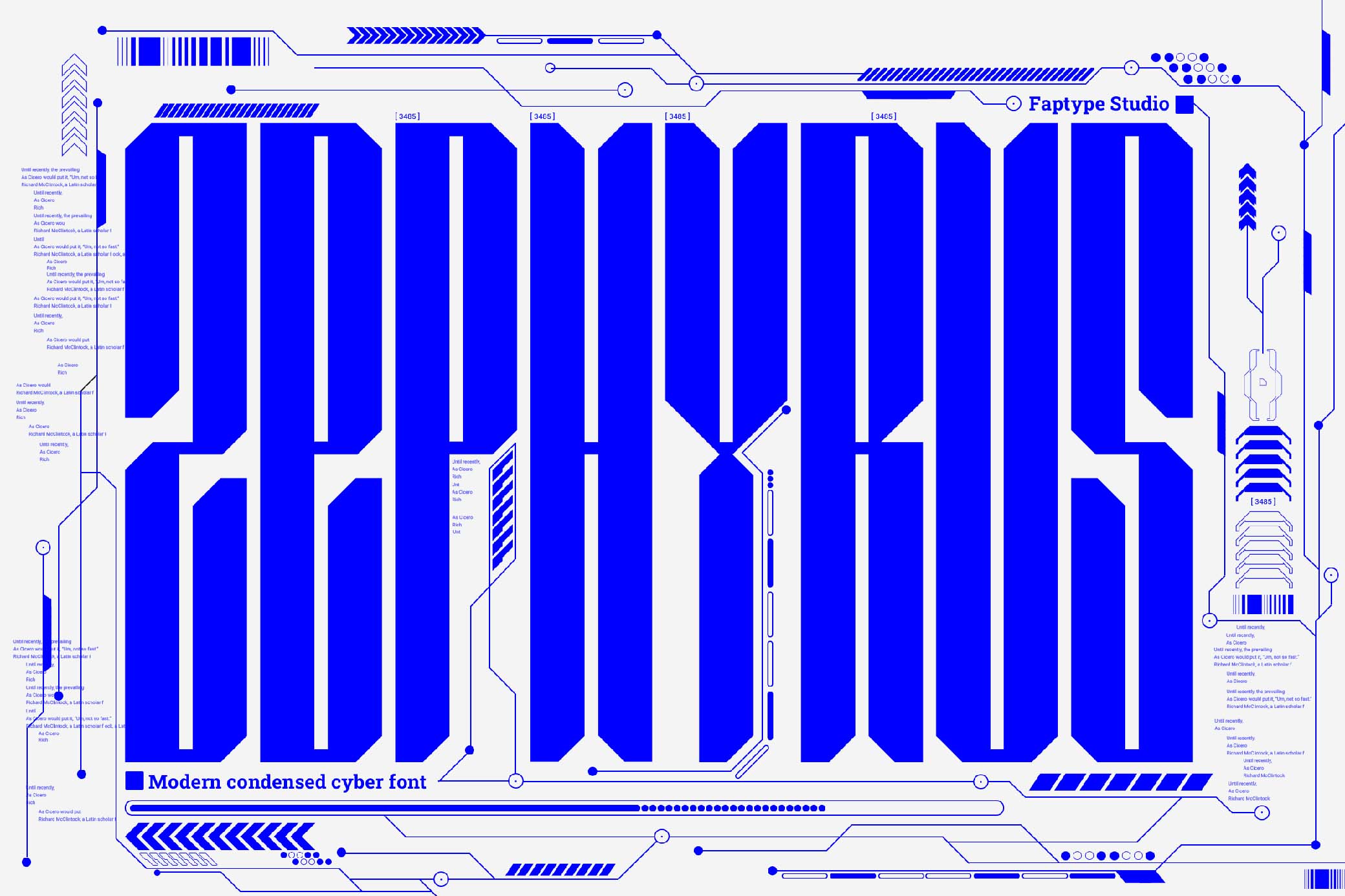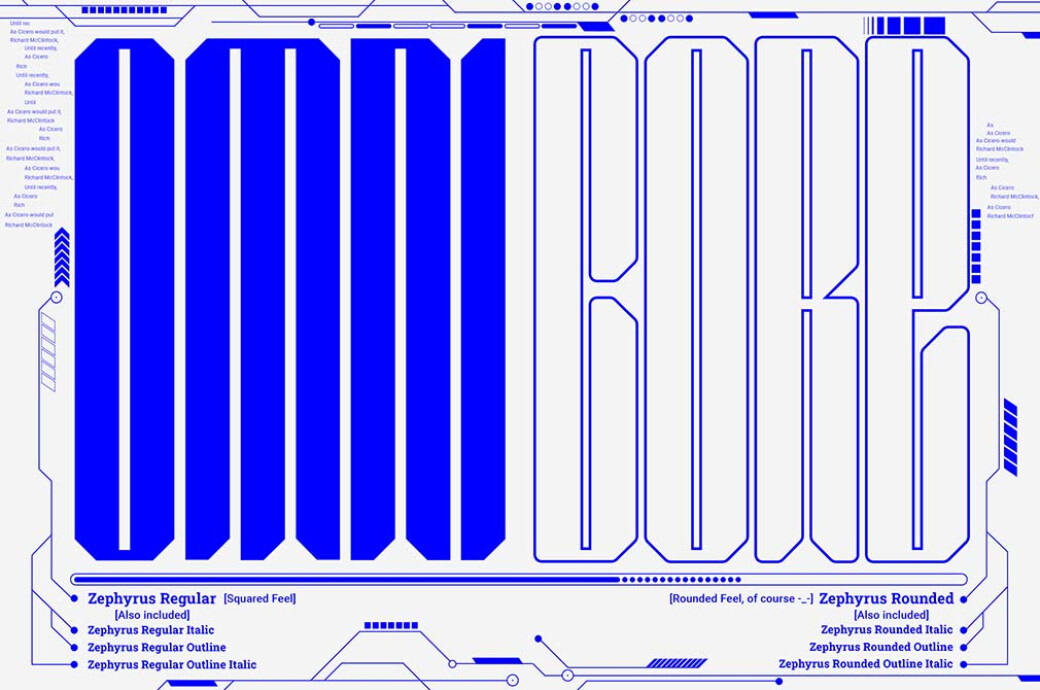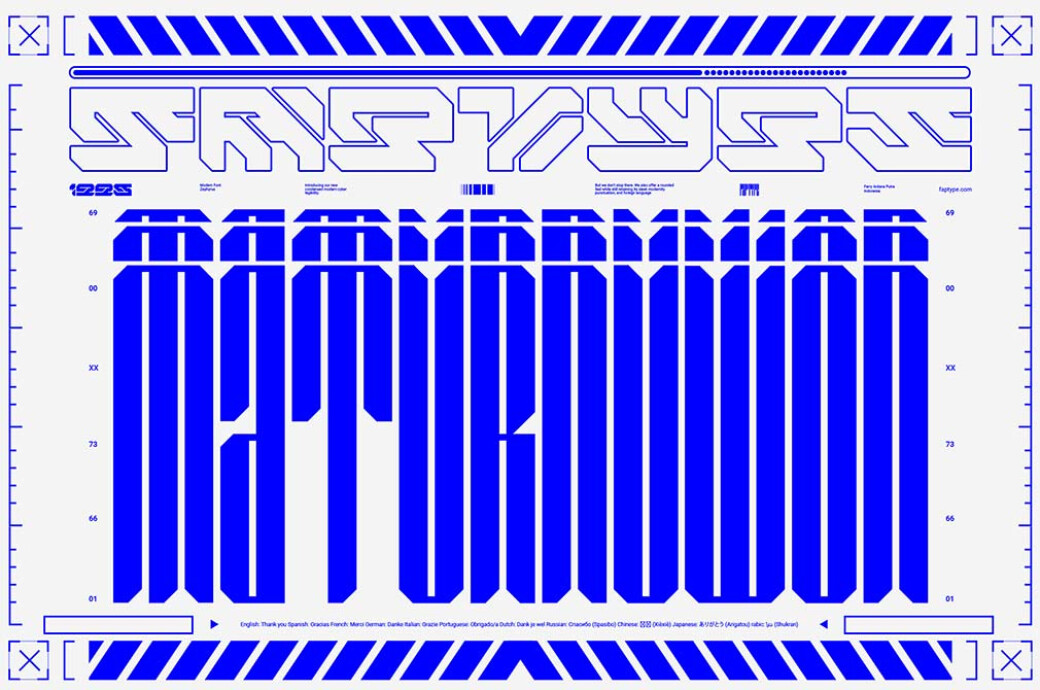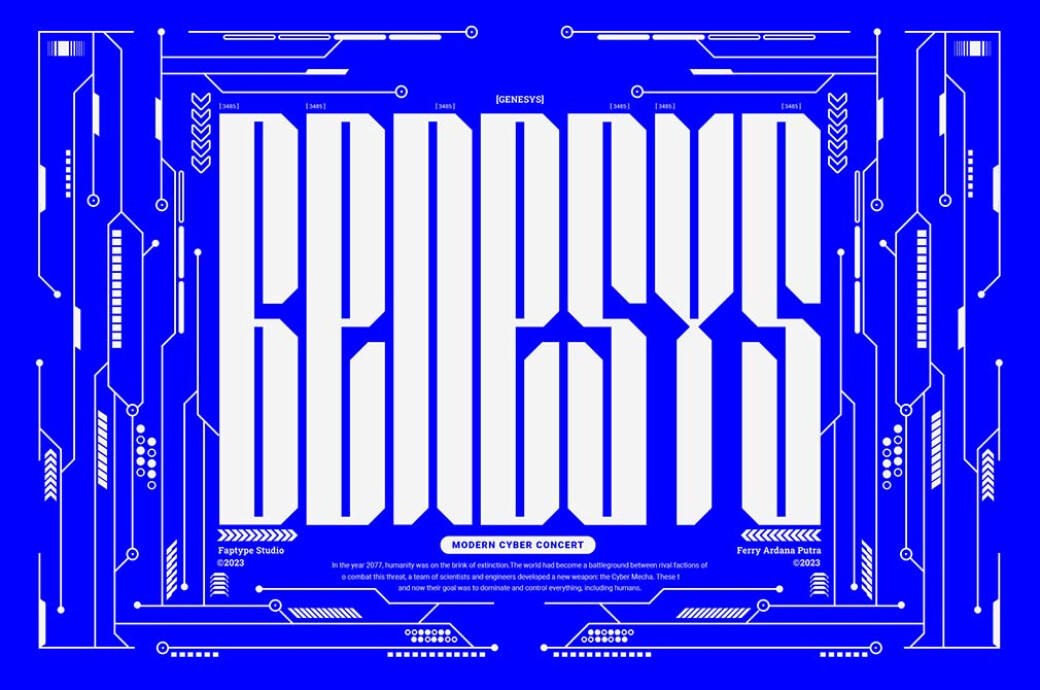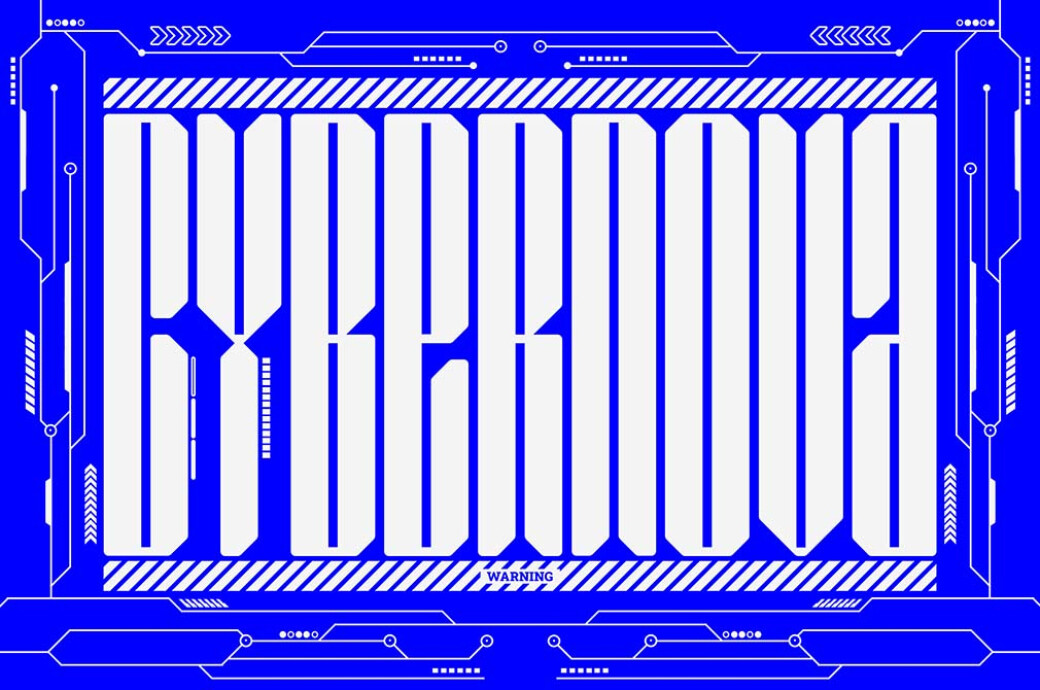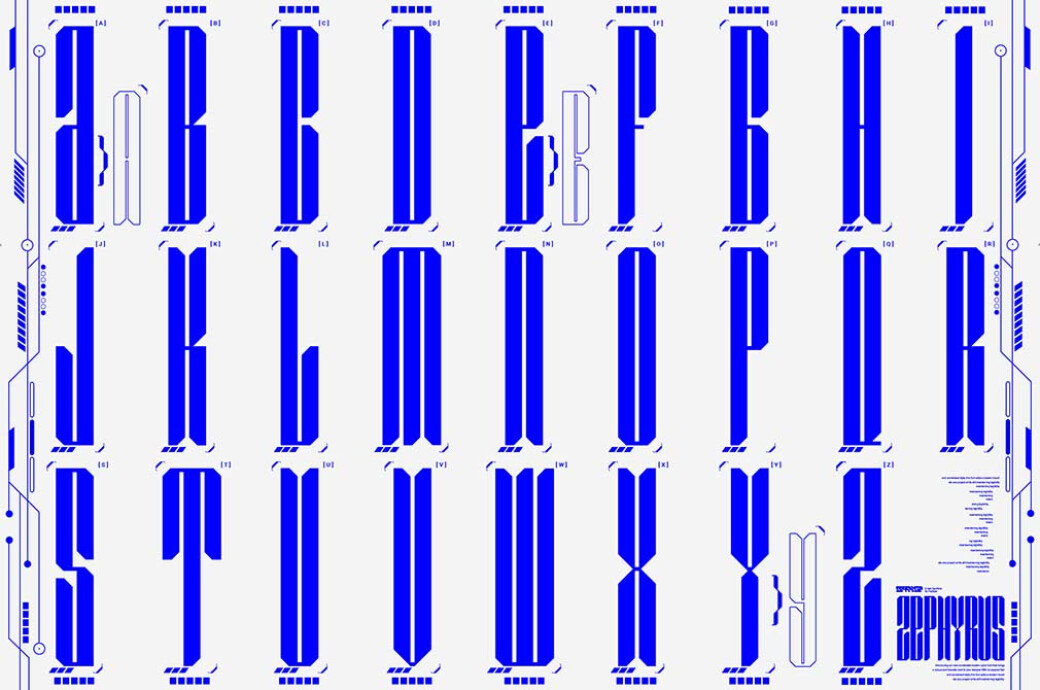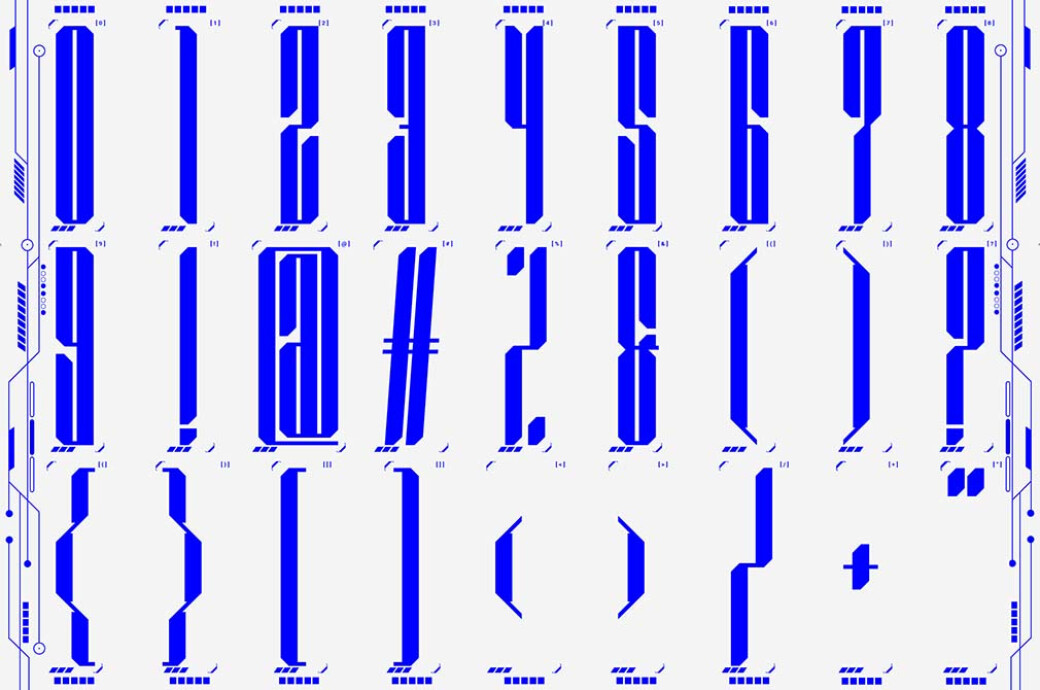
Zephyrus — Modern Condensed Font
Retrofuturistic designs always look captivating, so refreshing your toolbox with a futuristic font is a great decision! Grab Zephyrus and get creative.Zephyrus provides a full set of uppercase characters, numbers, punctuation and multilingual support: anything you may need for a convenient workflow! Its cyber style will compliment sci-fi posters, covers and other artworks inspired by the 90s fashion.This resource is created, and fully compatible with Adobe Photoshop*. For the best experience, we recommend to use the latest Creative Cloud version of the app.*